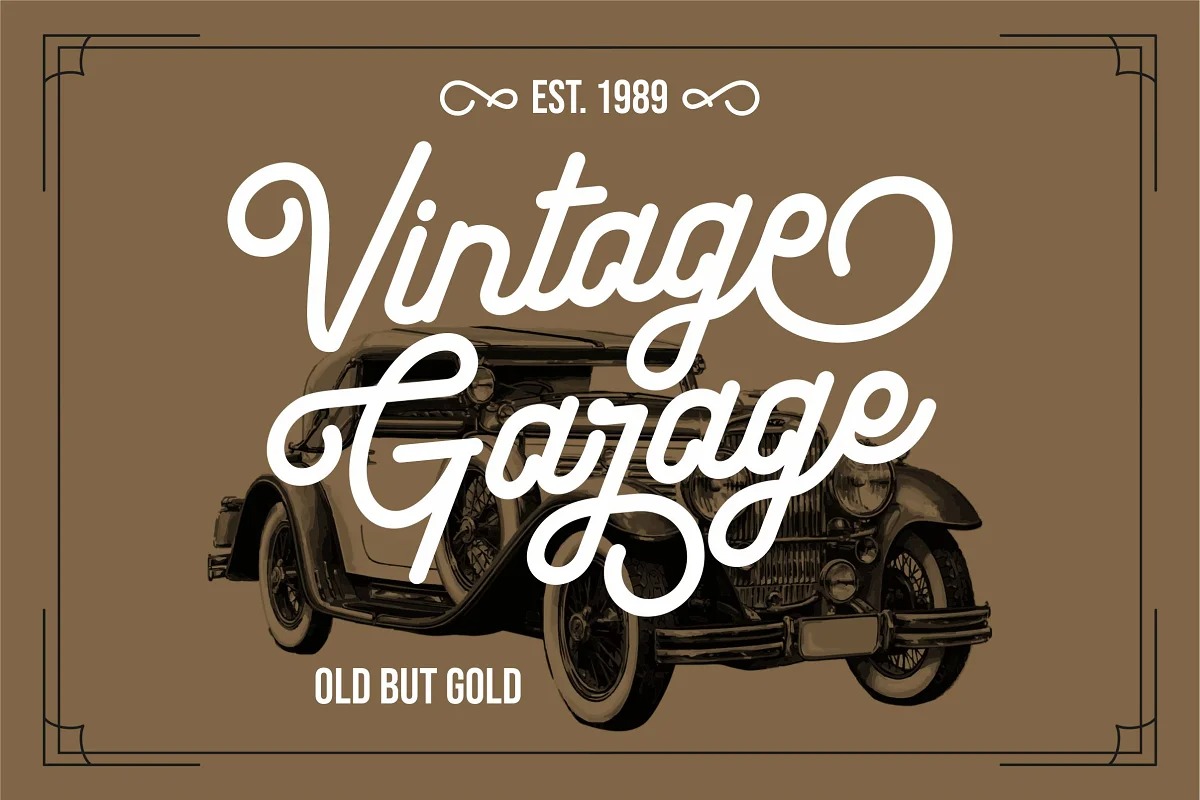
Fireclay Font
Fireclay Script Font
This font is a vintage monoline typeface inspired by vintage style typography combined with modern typography style. This font perfect for logotype, apparel, branding, packaging, advertising and more. This typeface is comes in uppercase, lowercase, punctuations, symbols & numerals, stylistic alternate, ending swashes. Also support multilingual Fireclay is perfect for logos & branding, photography, invitations, watermarks, advertisements, product designs, stationery, wedding designs, labels, product packaging, special events or anything that requires branding content.
Ending the Swash and alternate makes it complete. It comes with several different lengths.It’s easy to access swash